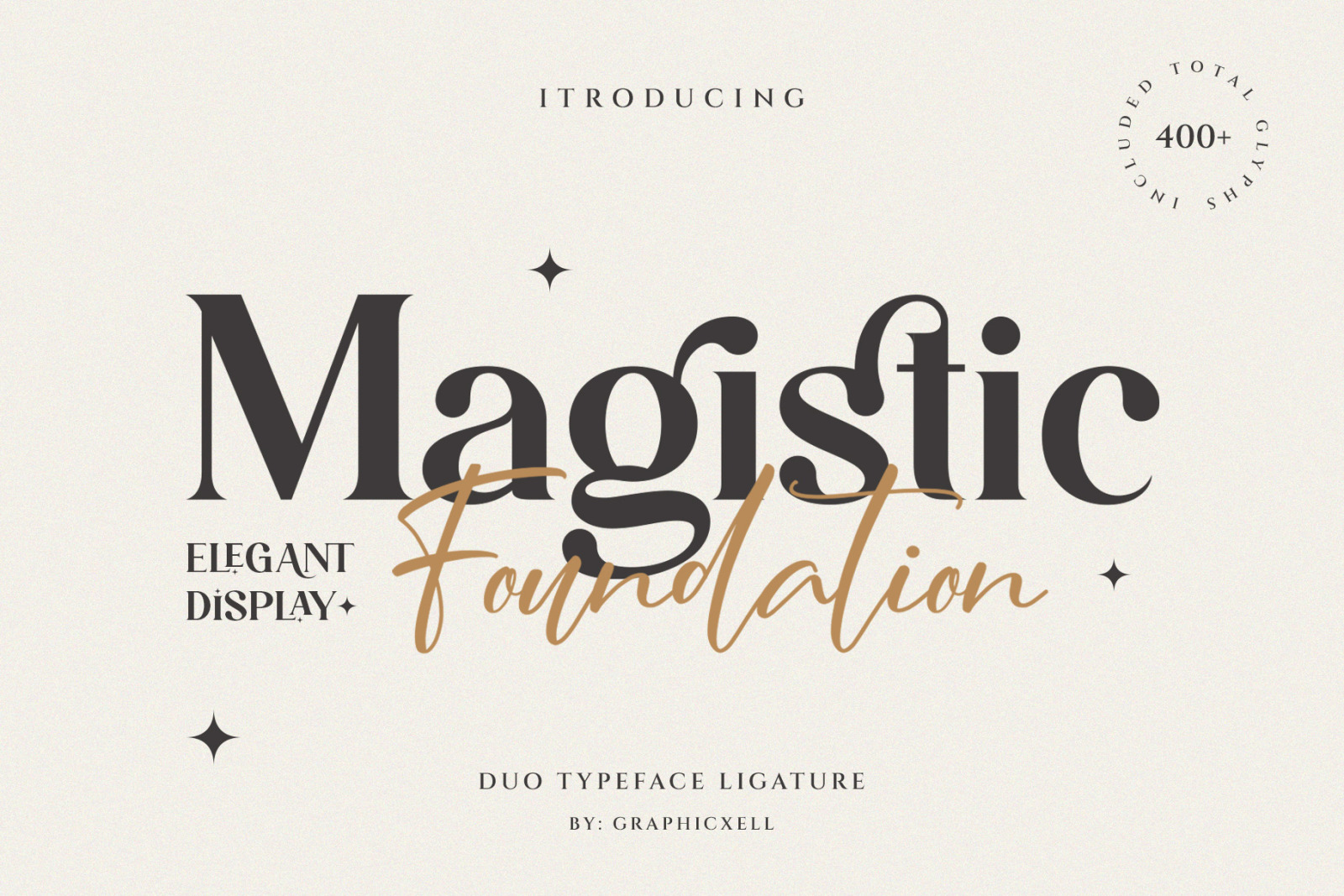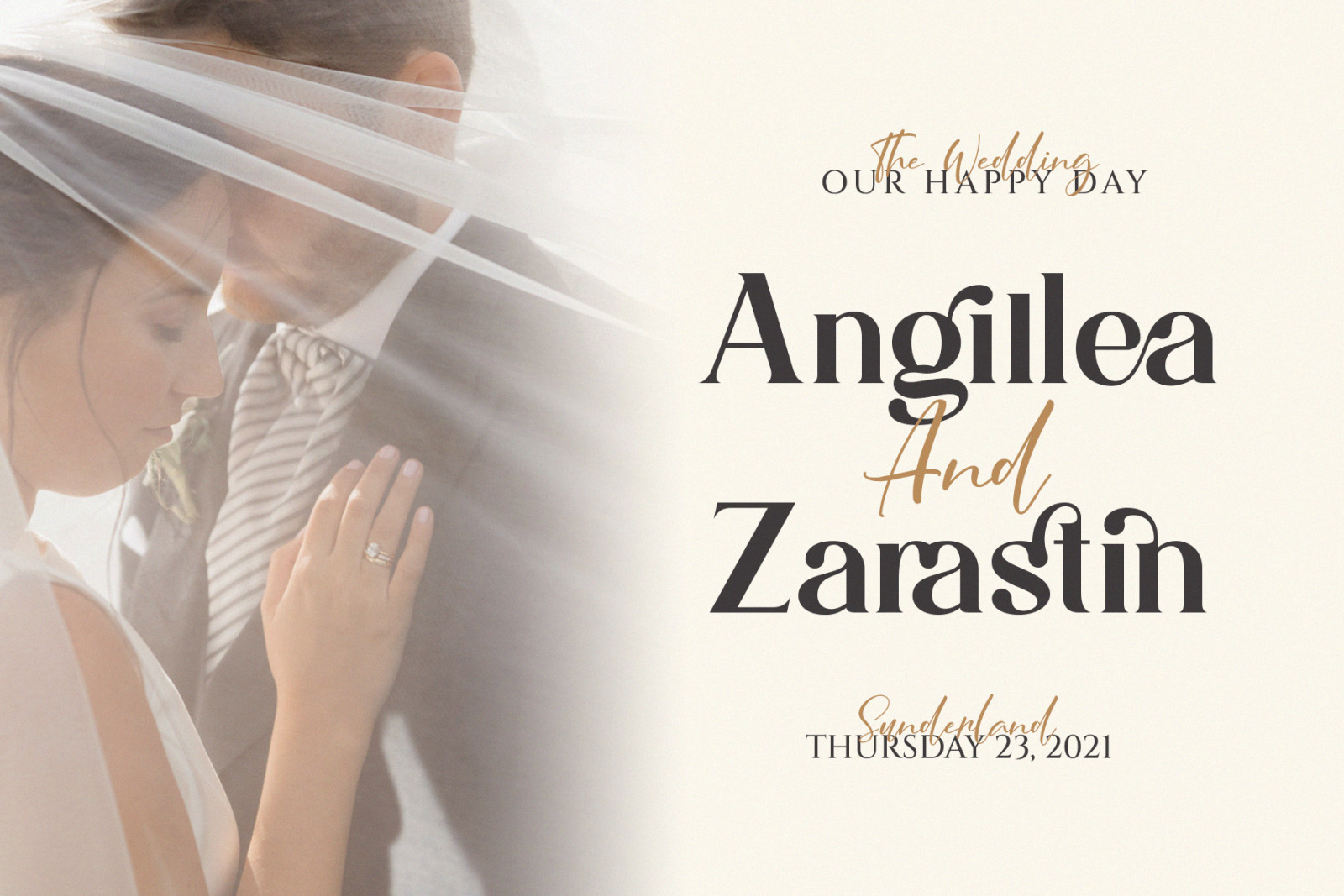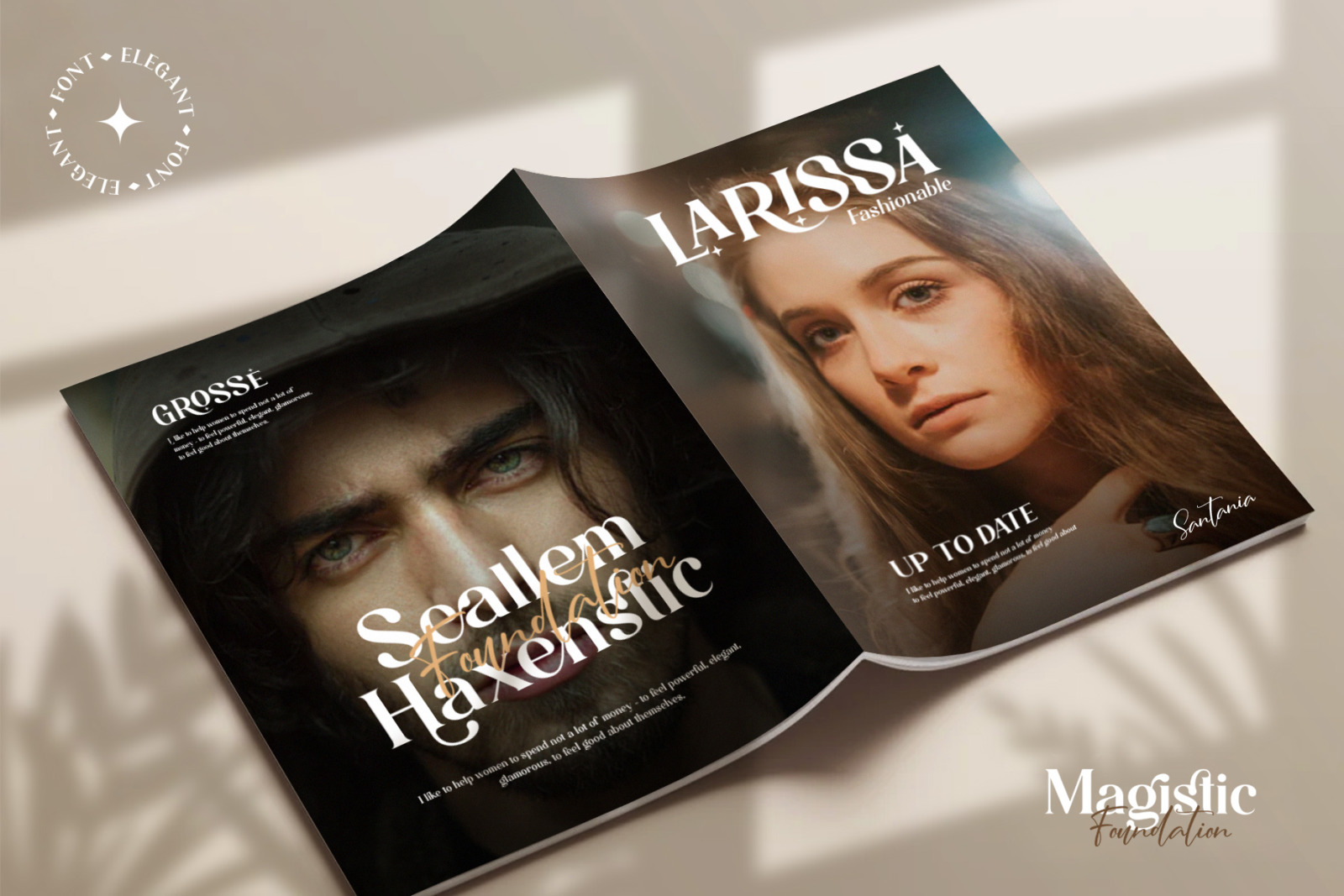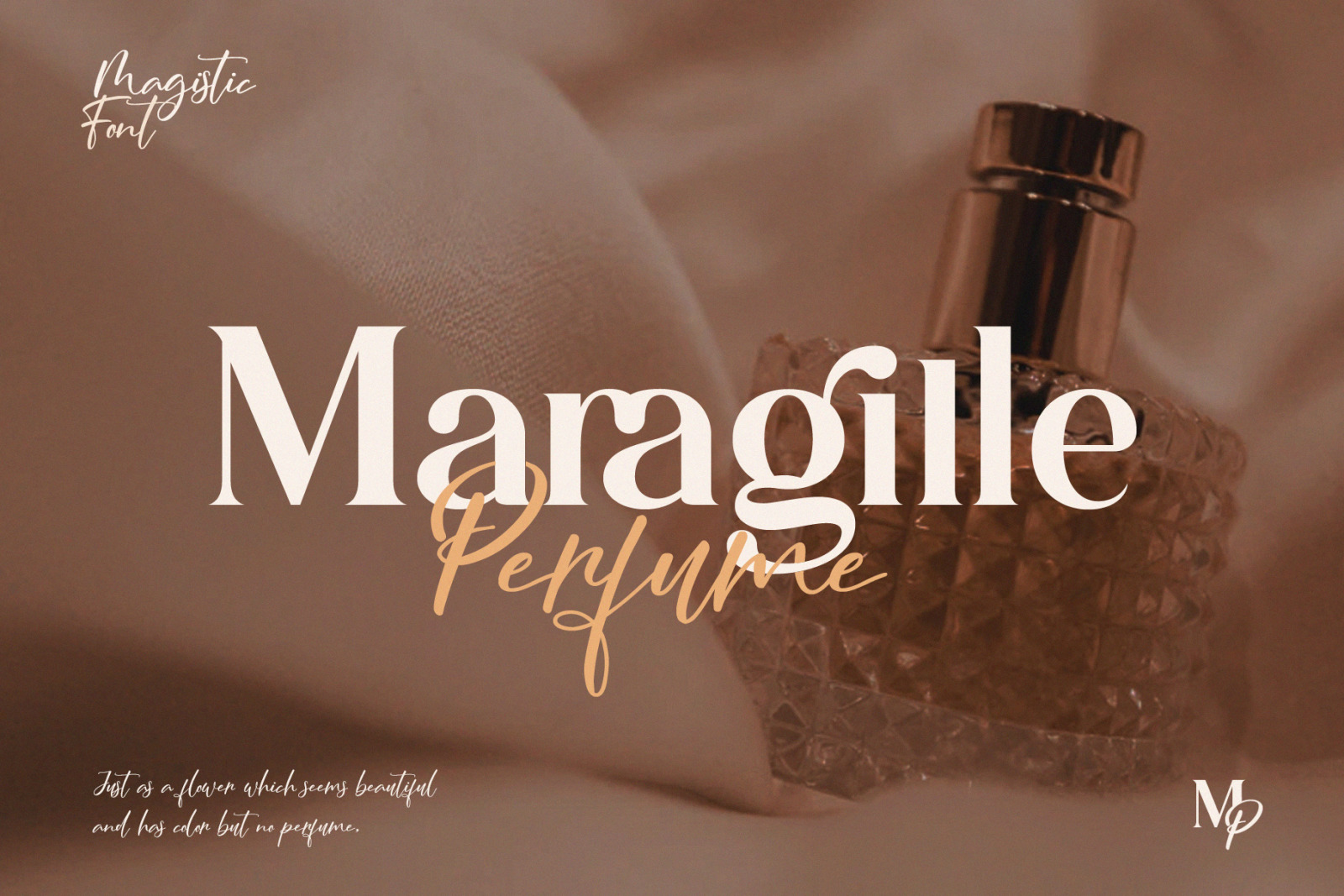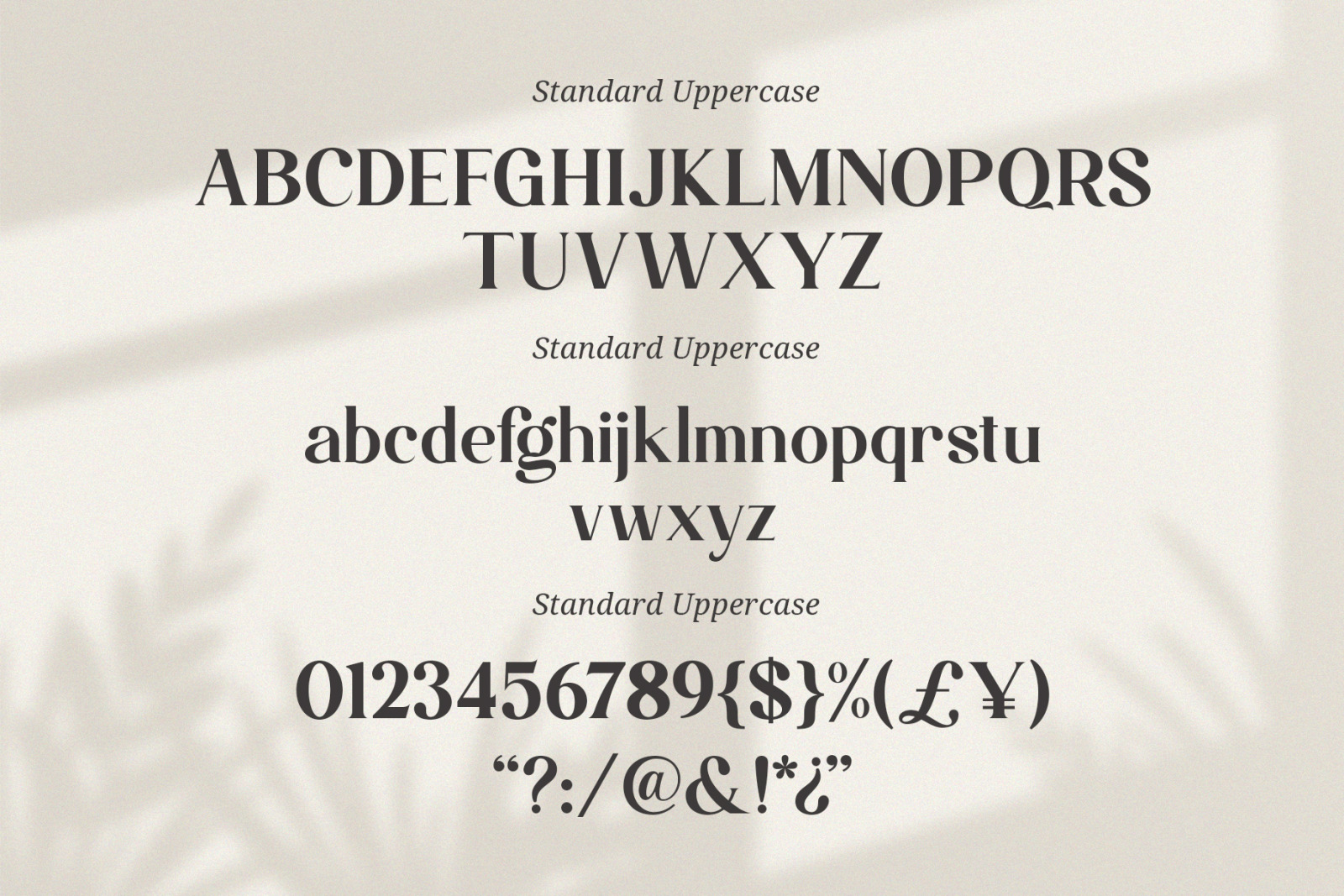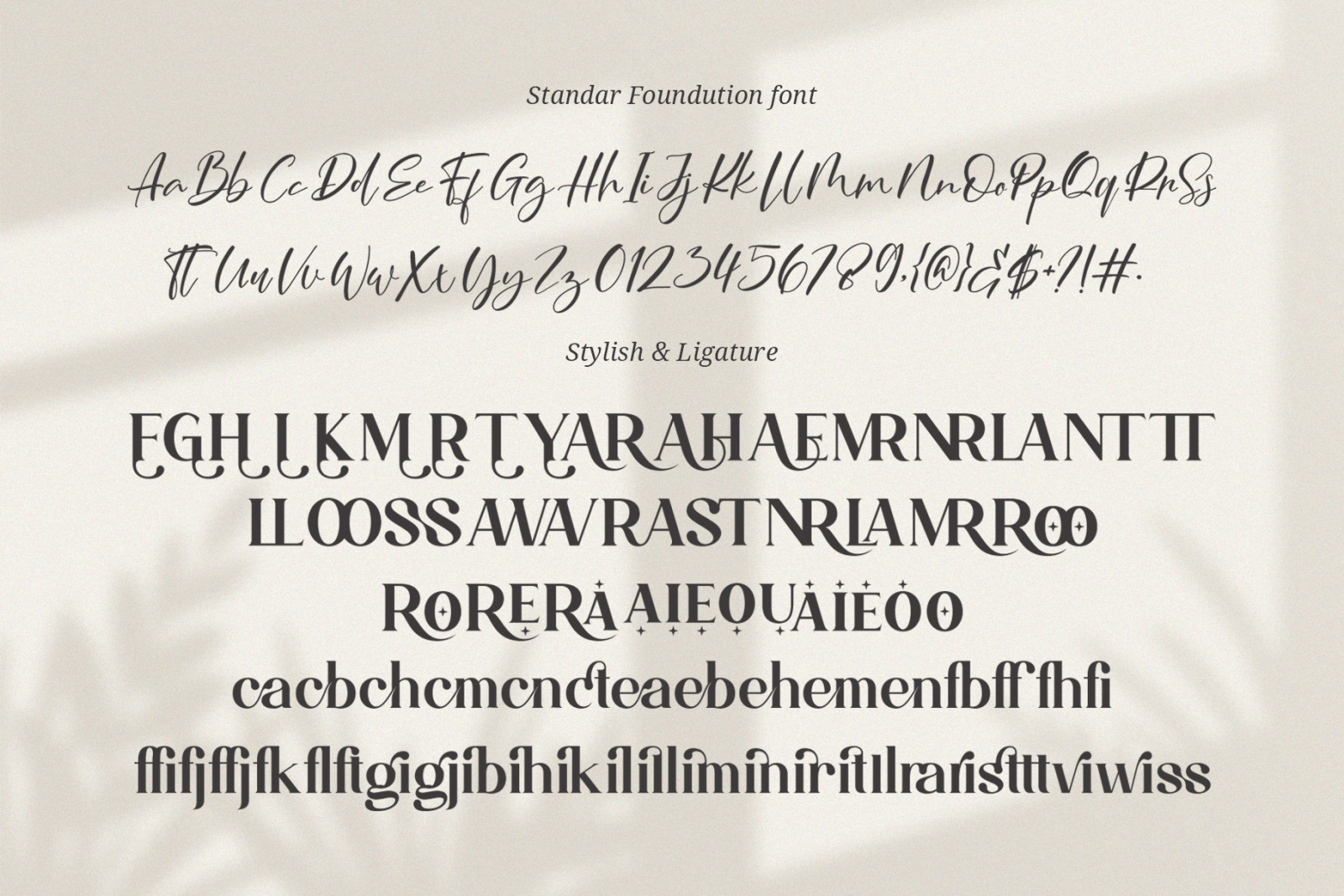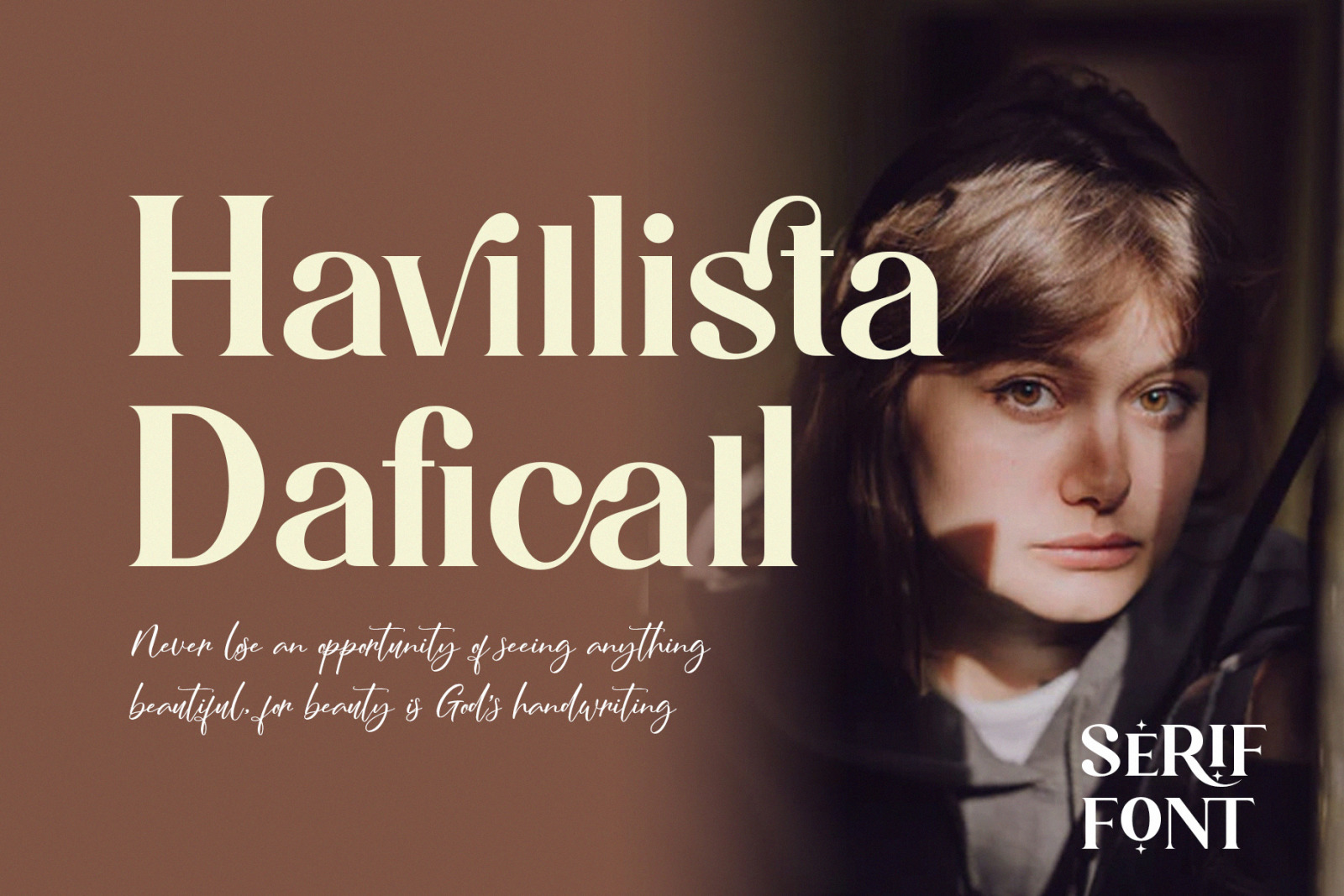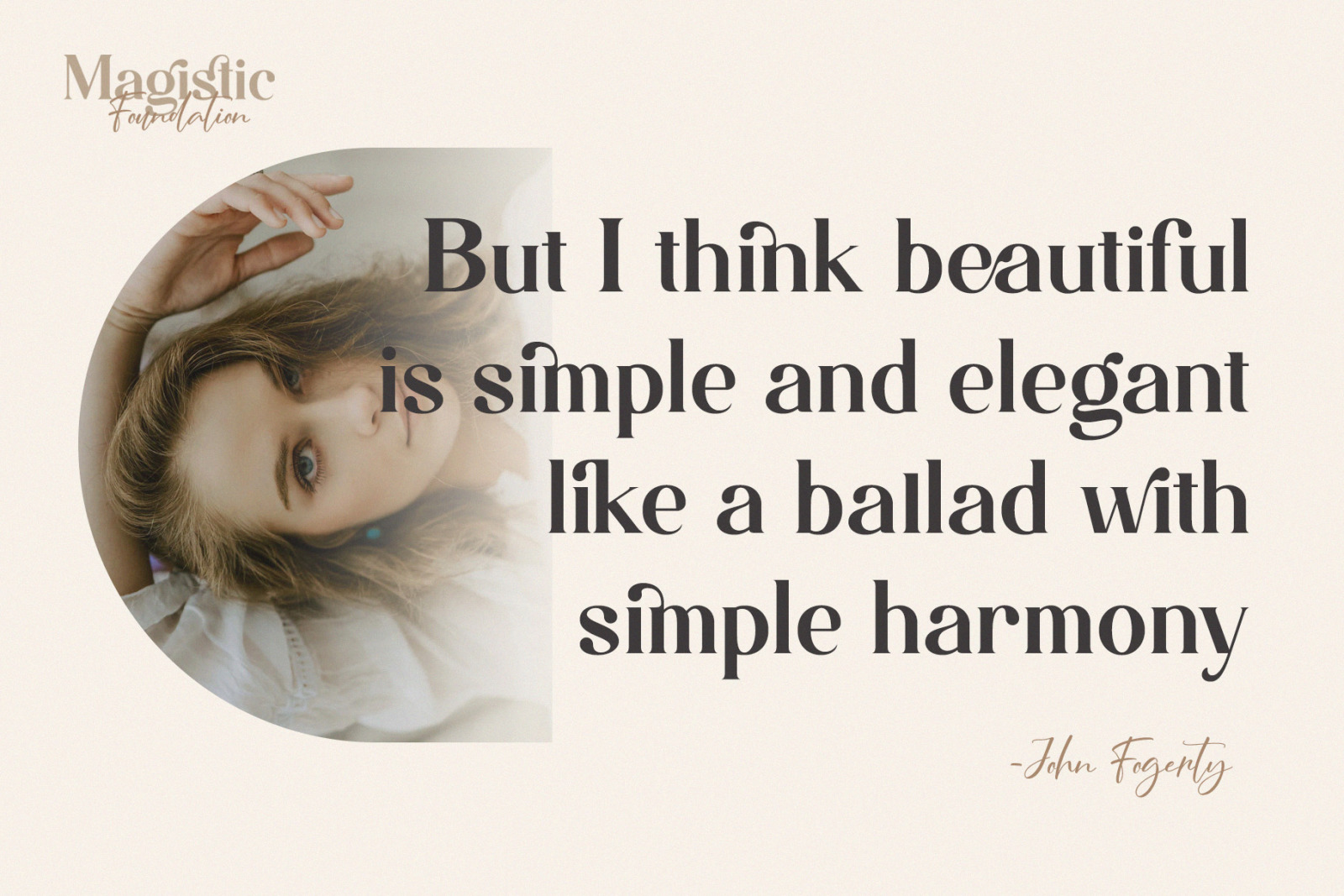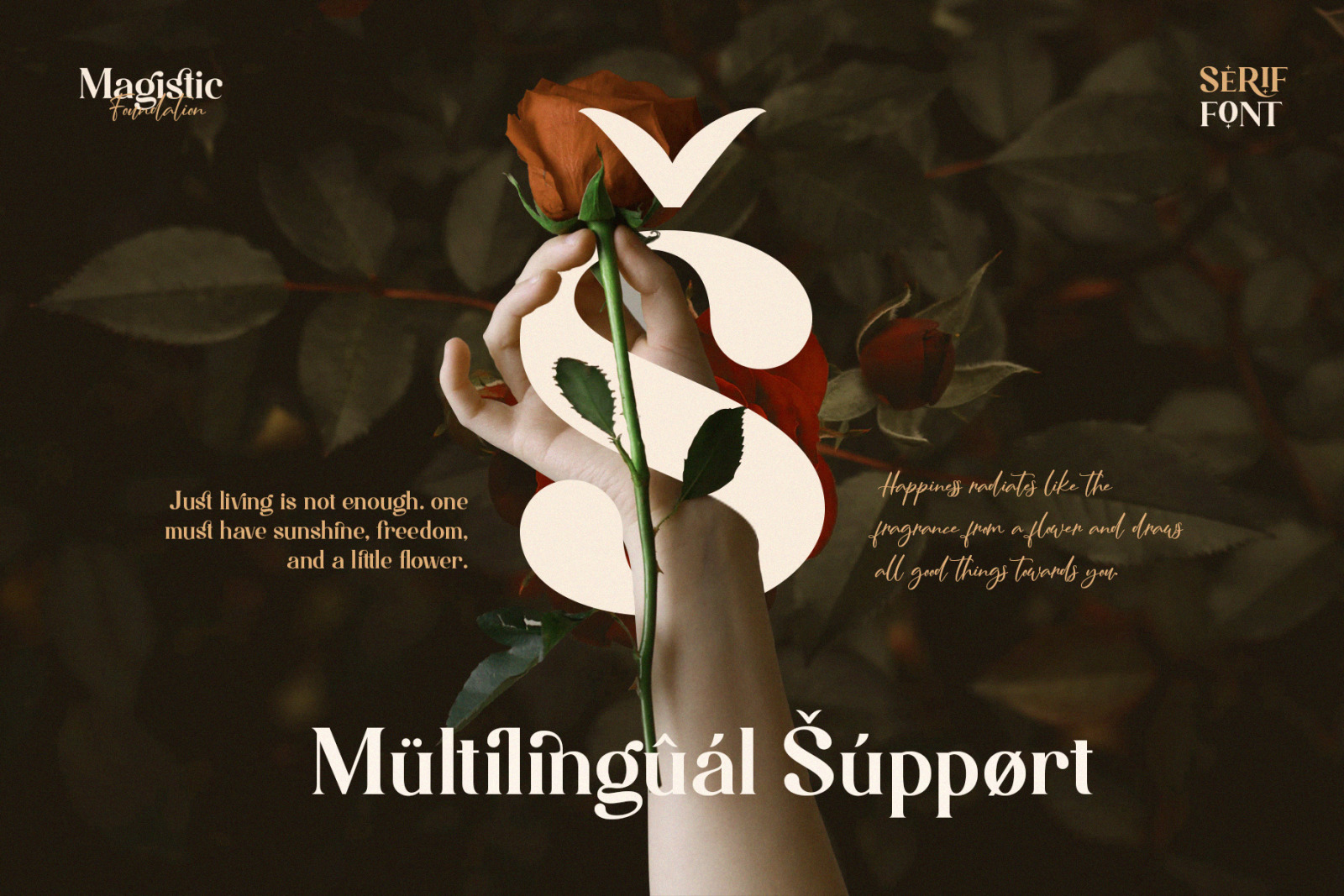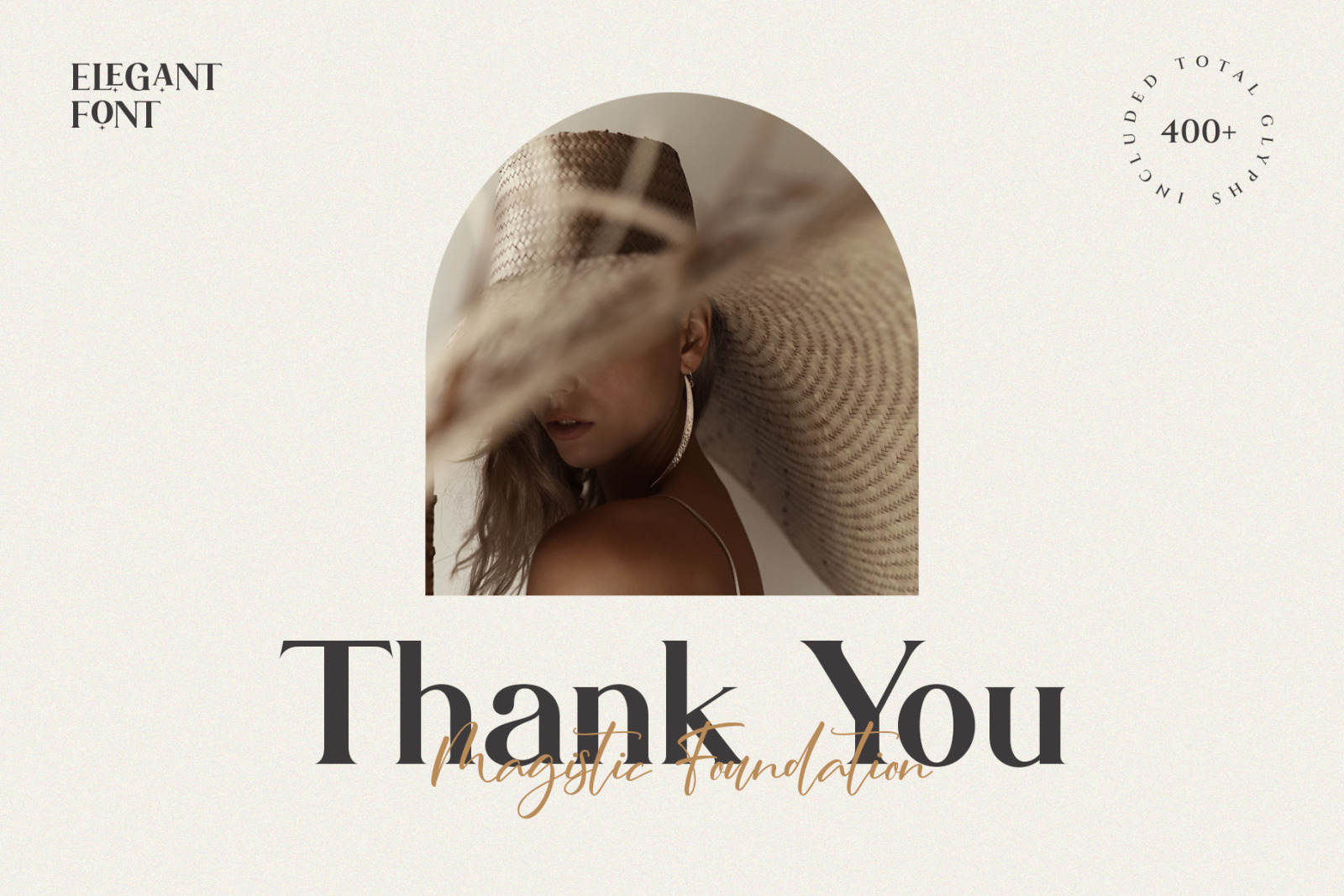
Magistic - Duo Ligature Typeface
Magistic & Foundution Signature - Stylish Duo Ligature Typeface inspired by the famous minimalist logo perfect for the purposes of designing templates, brochures, videos, advertising branding, logos and more.
+ Standard glyphs
+ Ligatures
+ International Accent
Fonts include multilingual support